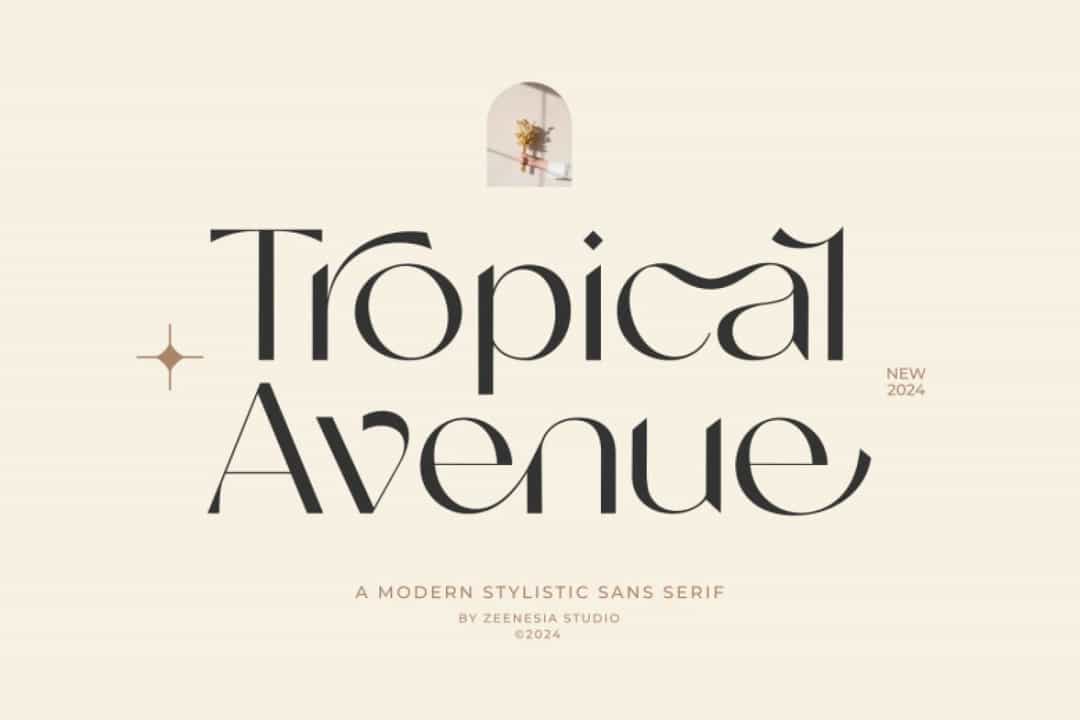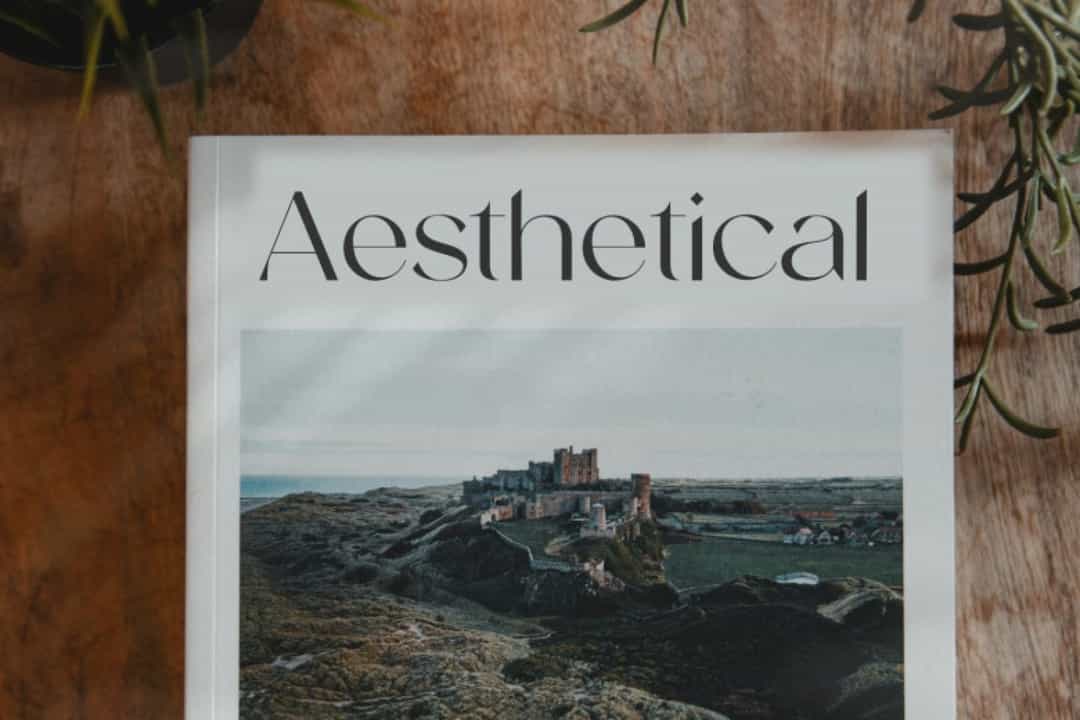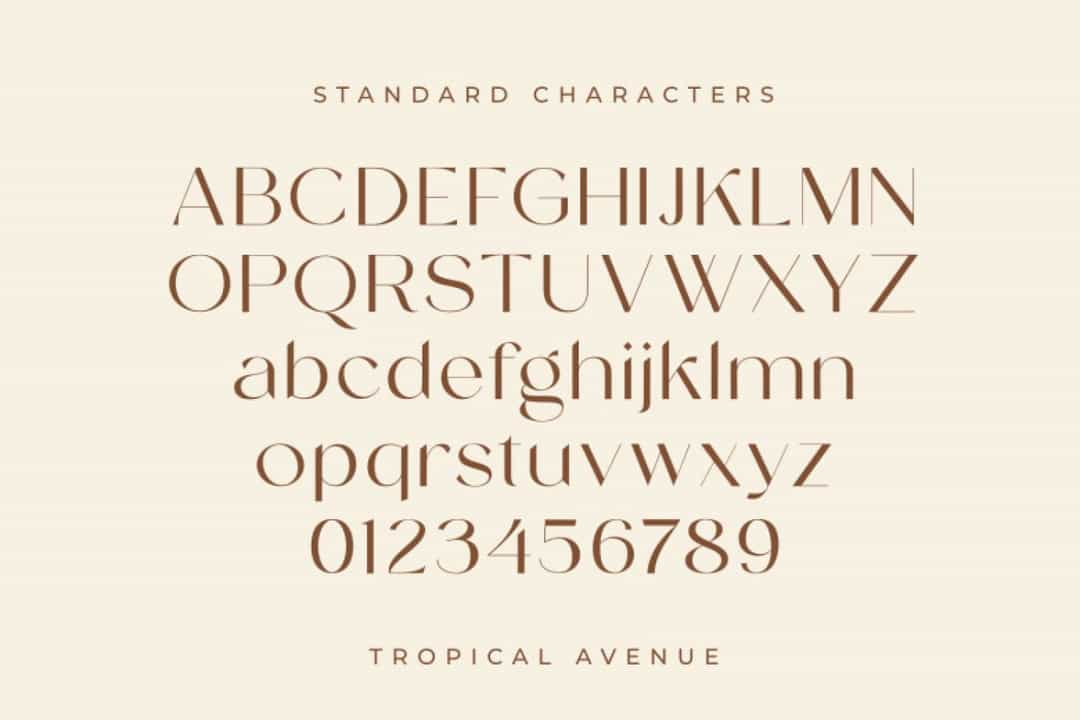
Tropical Avenue is an exquisite font with San Serif flair that will add something special and elegant to your project. Perfect for large spaces, Tropical Avenue adds visual impact while remaining flexible enough for daily use – ideal if you want to spice up a project!